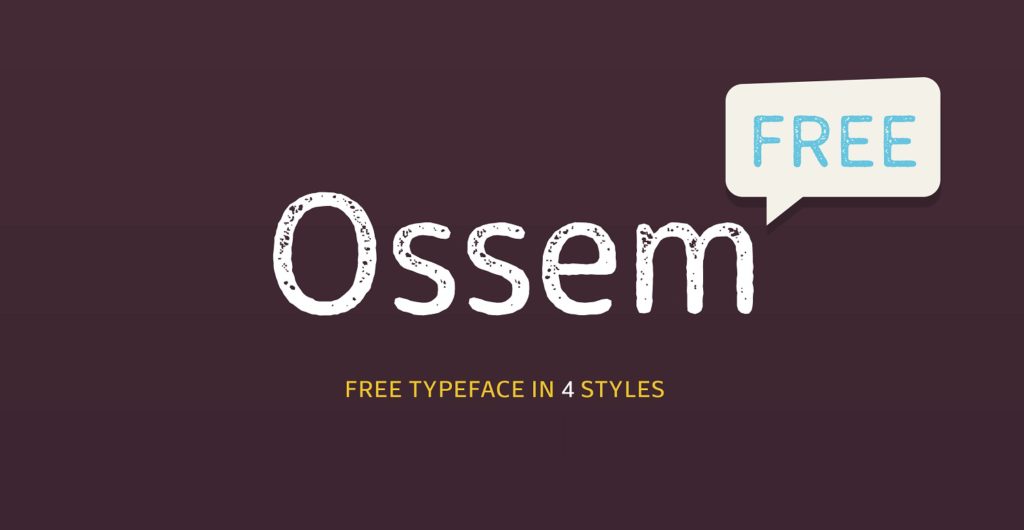
Ossem – Free Typeface
Ossem typeface – the winning design of a design competition we held together with “Списание Осем” – Magazine Eight and thats why the font is named Ossem (Eight). Designed by Kiril Semkov. And the fonts are completely free for personal as well as commercial use.